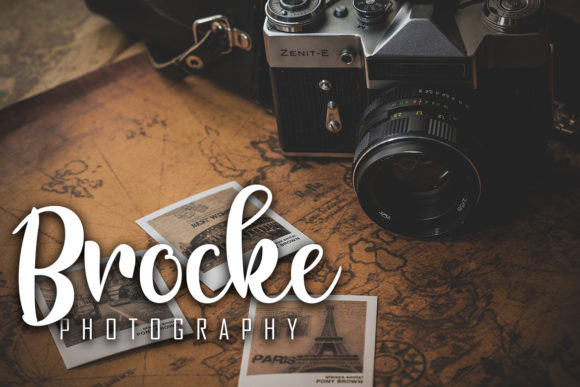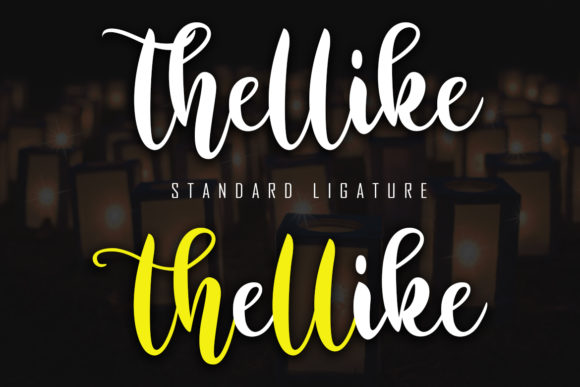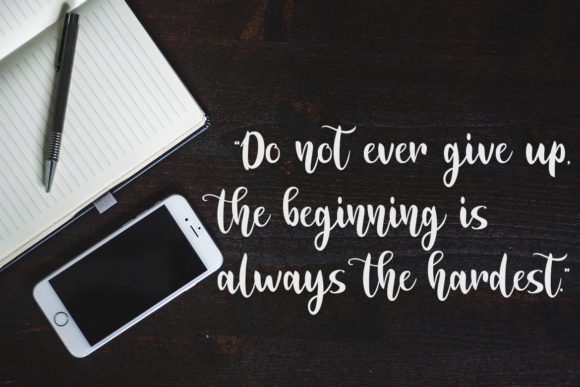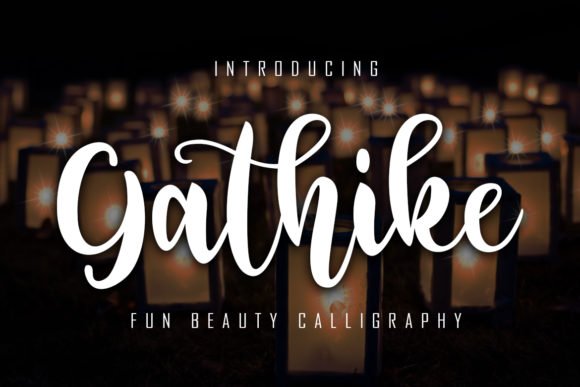
Introduction to Gathike Font
Gathike is a bold handwritten font, carefully handcrafted to become a true favorite.
Its casual charm makes it appear wonderfully down-to-earth, readable and, ultimately, incredibly versatile Gathike will look outstanding in any context, whether it’s being used on busy backgrounds or as a standalone headline.